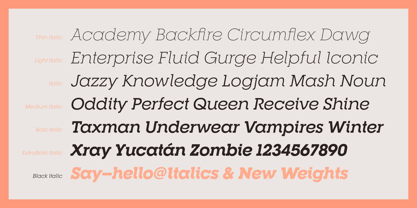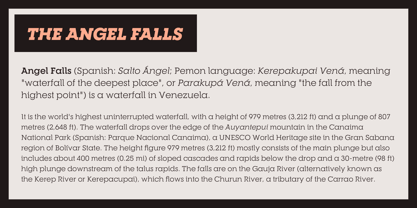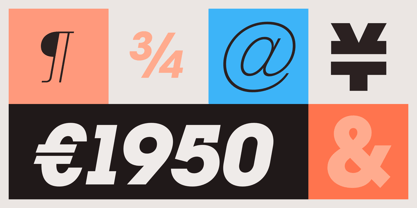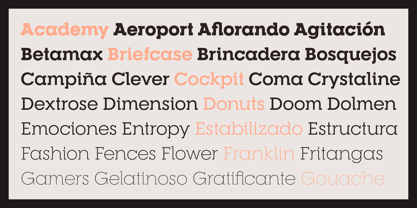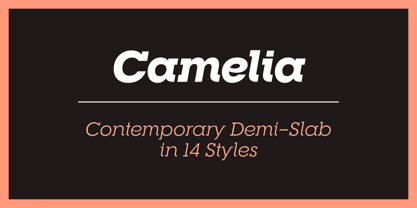
RNS Camelia Font
RNS Camelia Font is perfect for elegant branding projects, sophisticated fashion labels, luxury beauty packaging, refined wedding stationery, graceful greeting cards, boutique logos, delicate social media graphics, upscale spa branding, premium lifestyle marketing, and timeless feminine communications.
What makes RNS Camelia Font so exciting is its botanical elegance that captures the delicate beauty and natural grace of floral artistry while maintaining contemporary sophistication and professional quality. This enchanting typeface embodies organic refinement and gentle strength, creating typography that blooms with elegance and speaks with natural authority.
The RNS Camelia Font family includes light, regular, medium, and bold weights, complete with italic variations and floral-inspired design elements that provide designers with comprehensive tools for creating elegant and memorable typography that celebrates natural beauty and sophisticated femininity.
Blossom with elegant sophistication using RNS Camelia Font Free Download, a beautifully crafted typeface that brings the graceful beauty of botanical artistry to contemporary design projects. This exceptional font embodies the perfect fusion of natural elegance and modern refinement, making it an ideal choice for brands that celebrate organic beauty and sophisticated femininity.
The gracefully proportioned letterforms of RNS Camelia Font showcase botanical elegance with refined character that creates instant recognition of natural beauty and sophisticated quality. Each character displays careful attention to maintaining the organic grace that defines floral artistry while ensuring contemporary readability and professional versatility. The font's delicate curves and elegant spacing contribute to its sophisticated appearance and natural appeal.
Beauty brands and feminine-focused designers consistently choose RNS Camelia Font for projects requiring elegant sophistication and natural refinement. The comprehensive character set includes uppercase and lowercase letters, numerals, extensive punctuation, international accents, and botanical-inspired elements that provide complete support for luxury feminine branding applications and sophisticated design compositions.
The timeless elegance of RNS Camelia Font ensures exceptional performance across both traditional print and modern digital platforms. Whether developing elegant brand identities, creating sophisticated beauty campaigns, or designing refined marketing materials, this remarkable typeface delivers consistent grace that resonates with audiences appreciating natural beauty and sophisticated femininity.